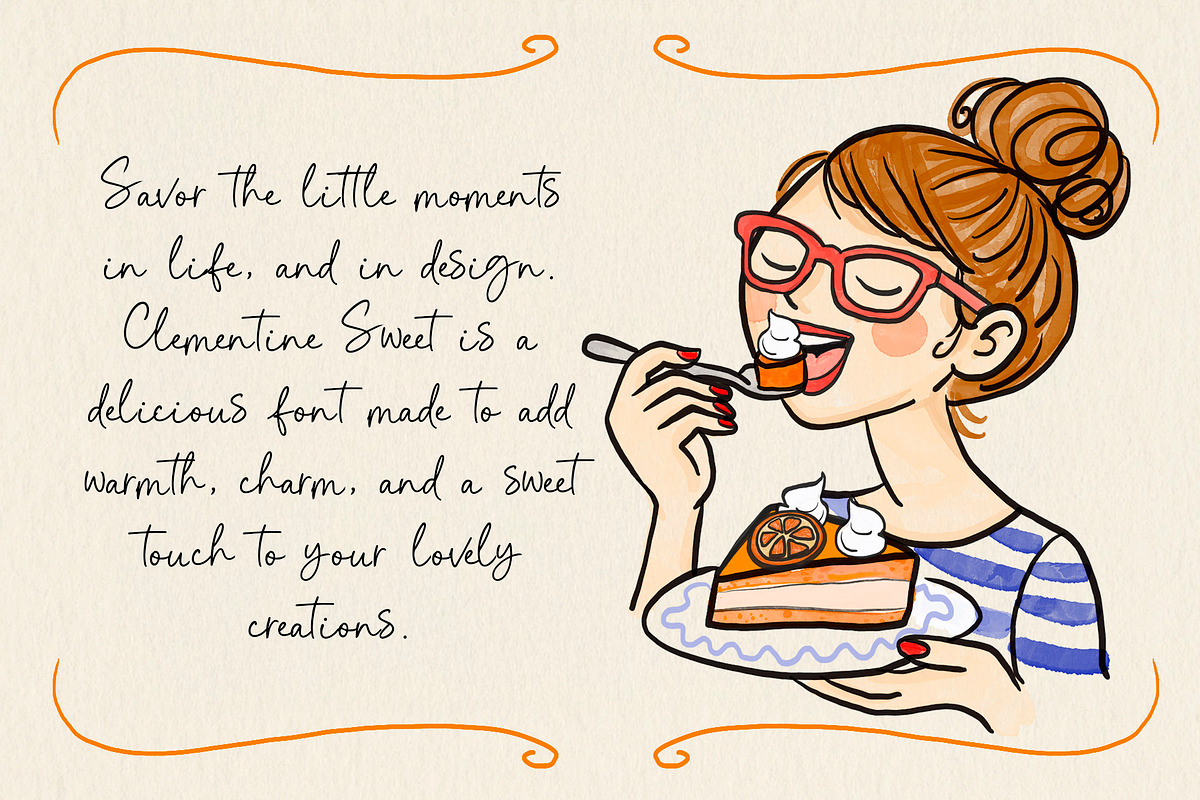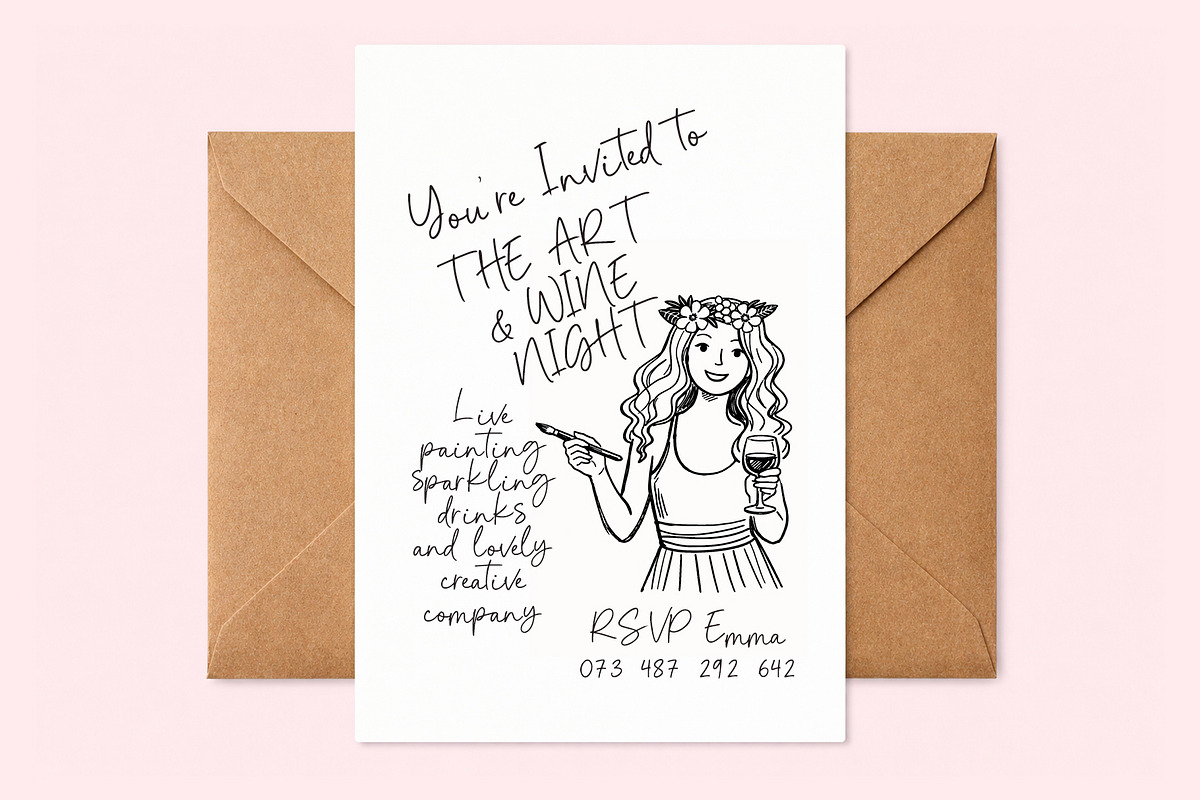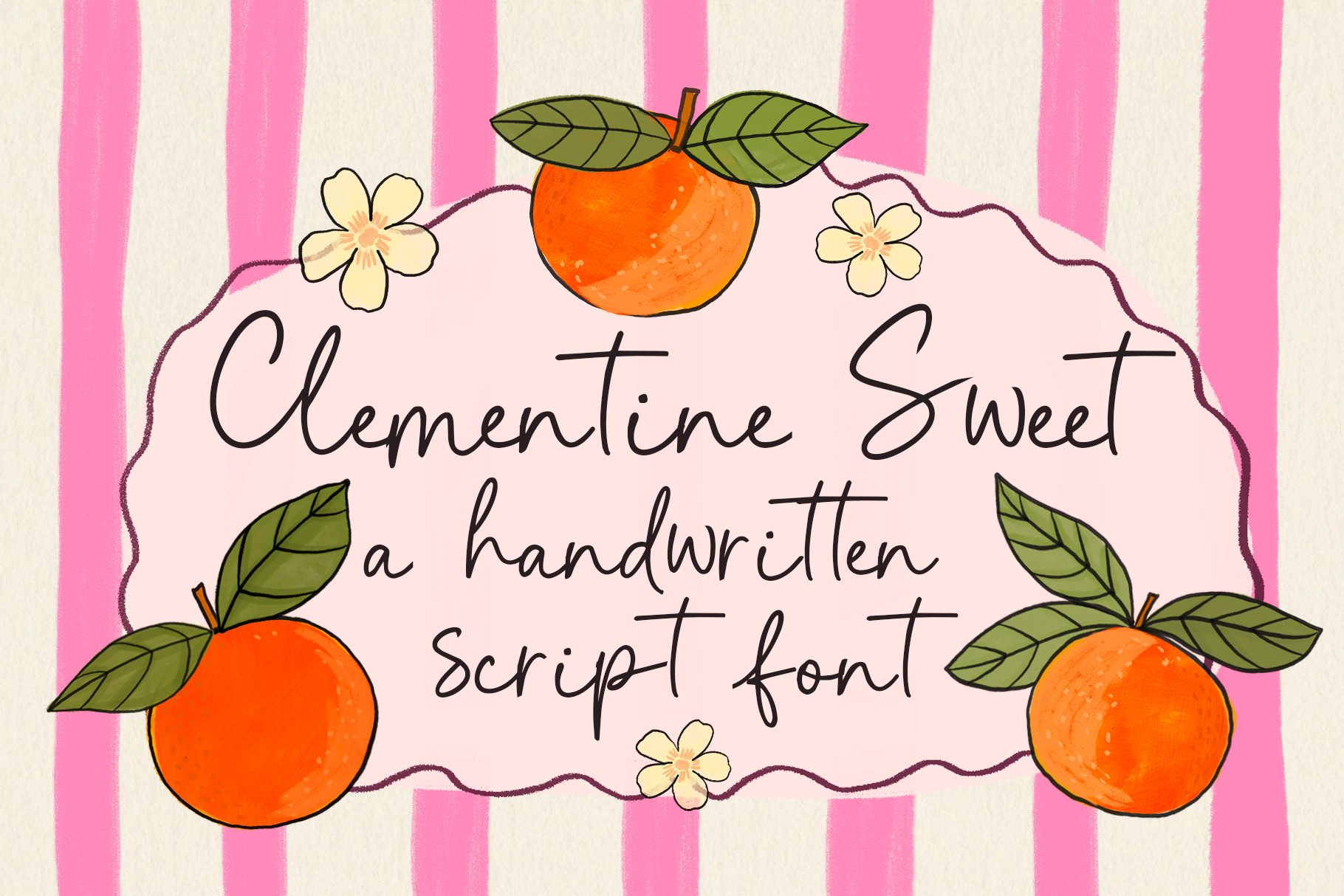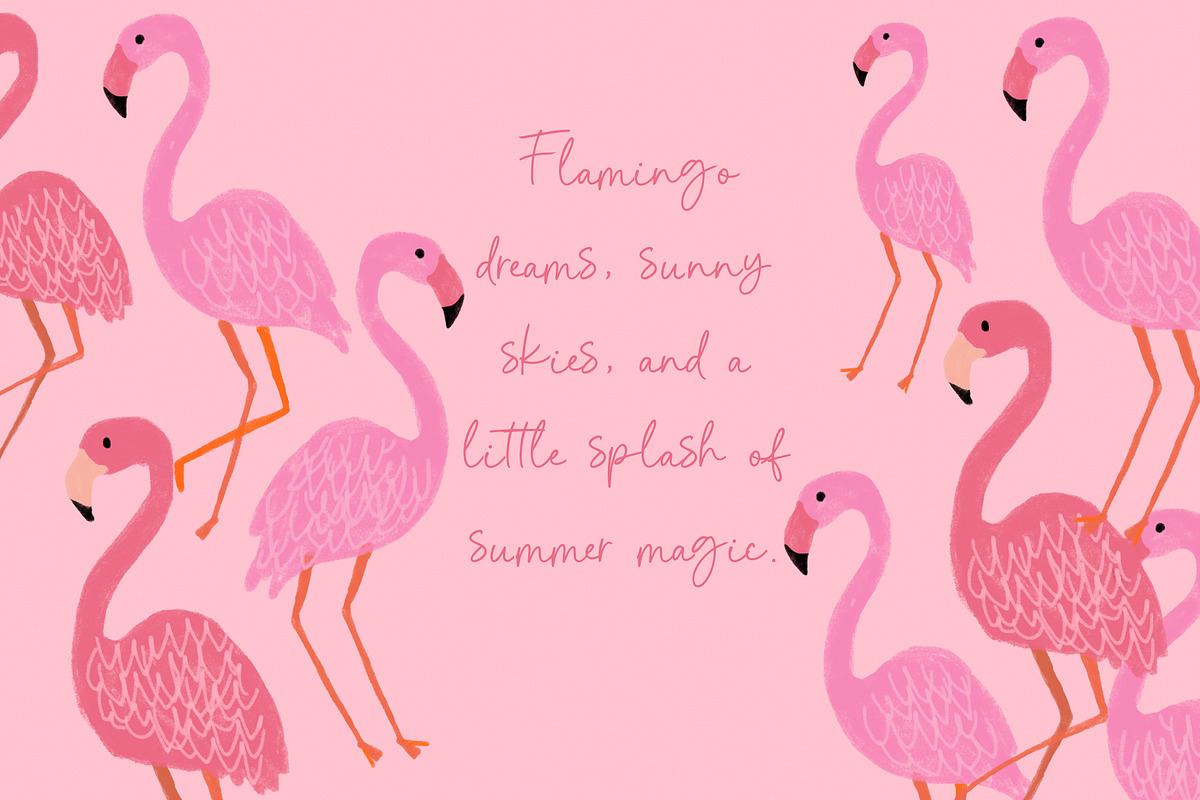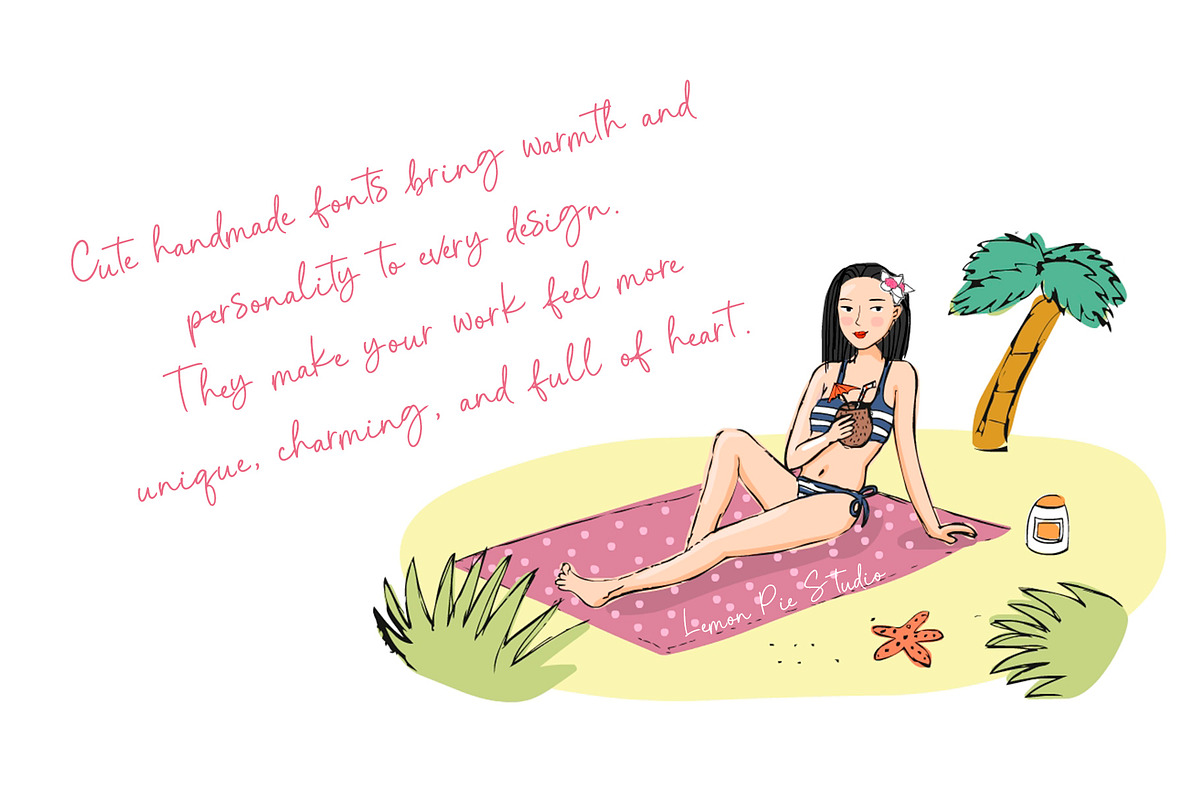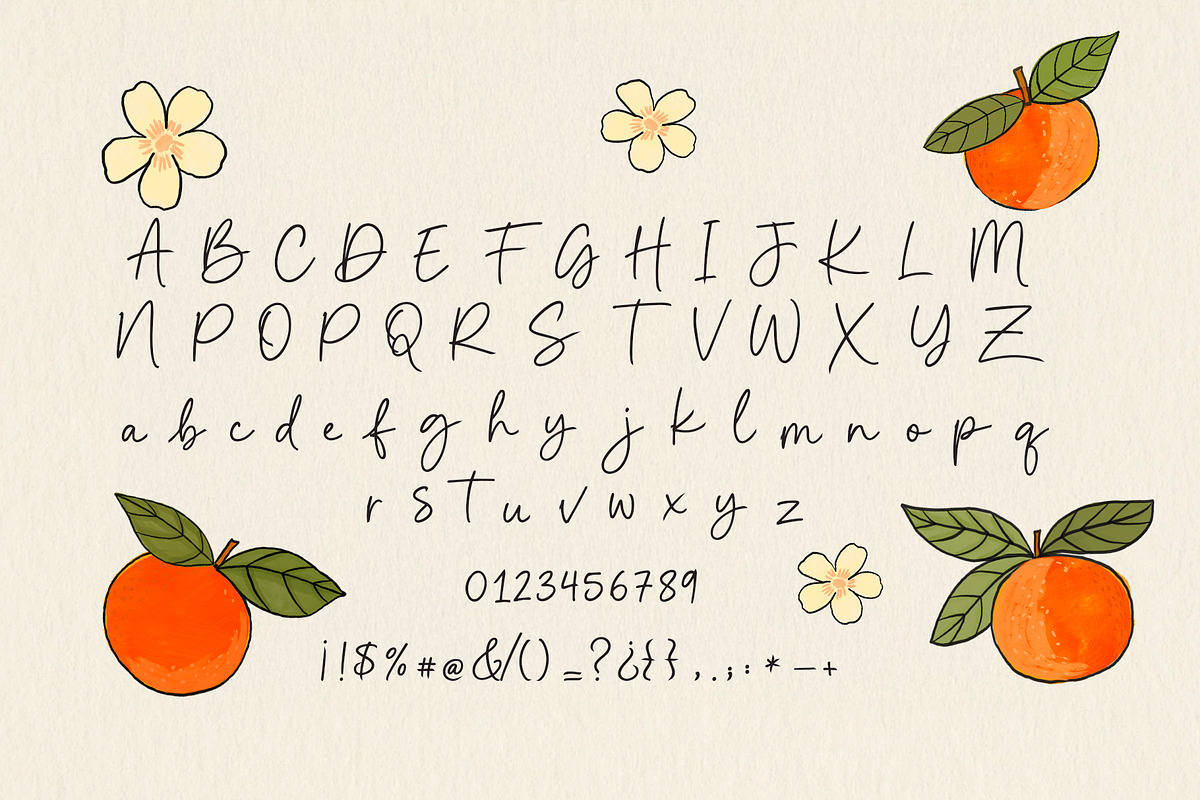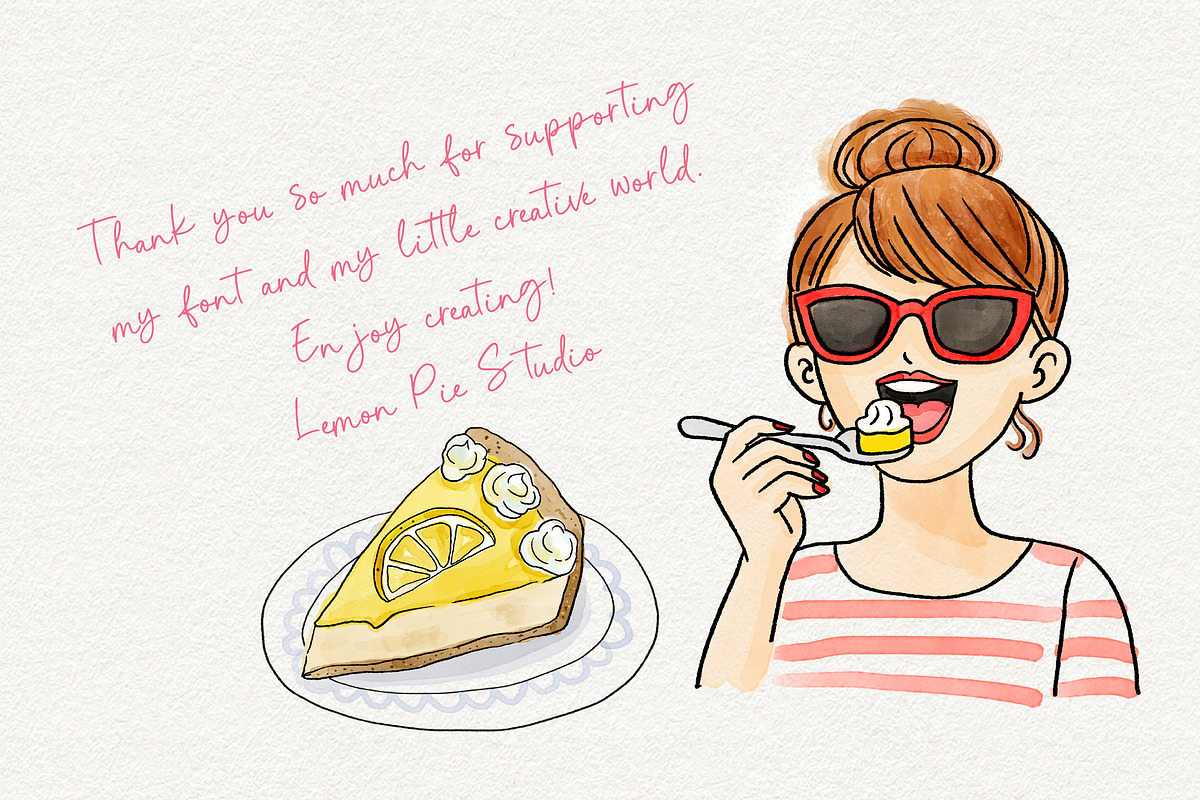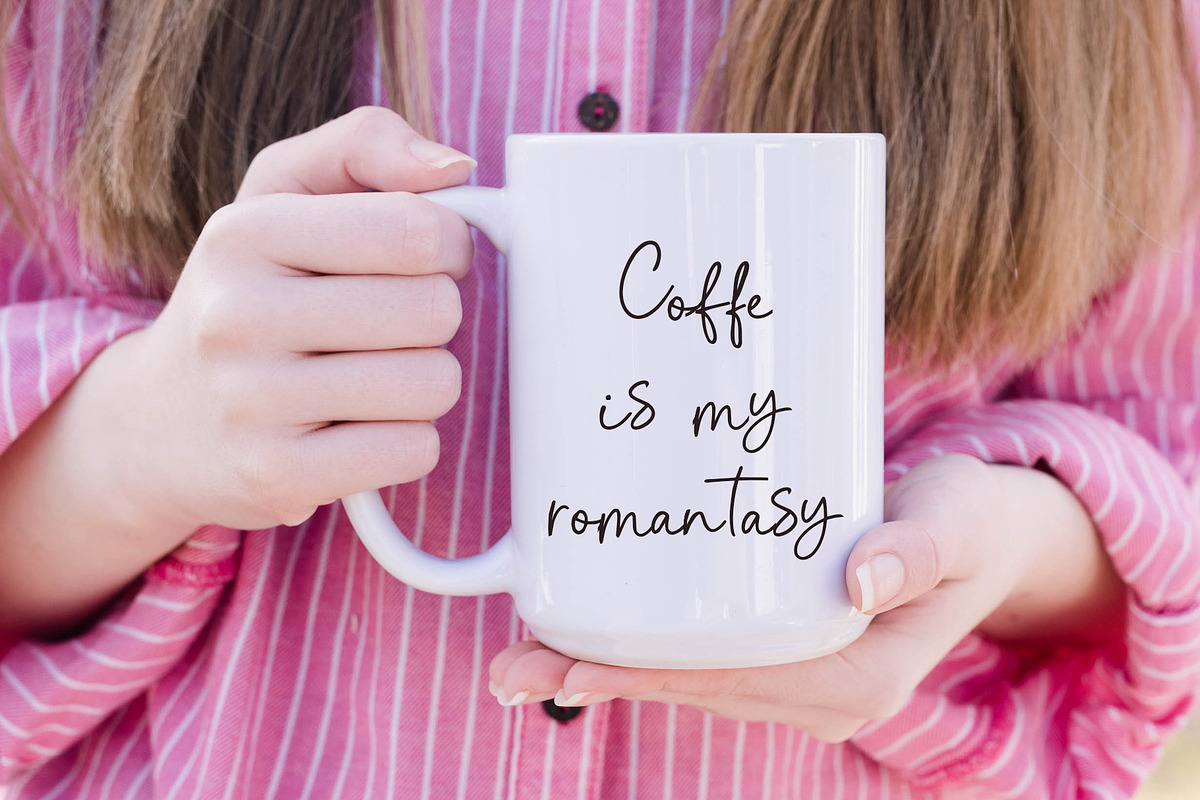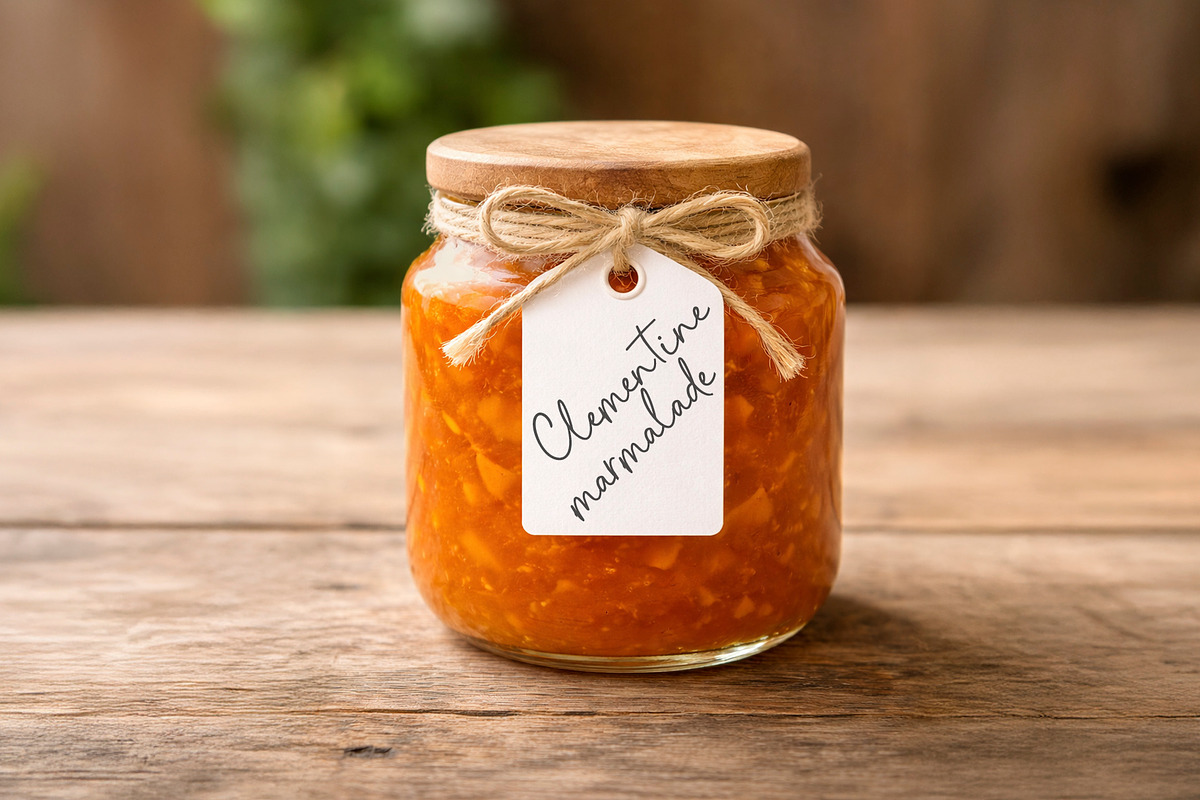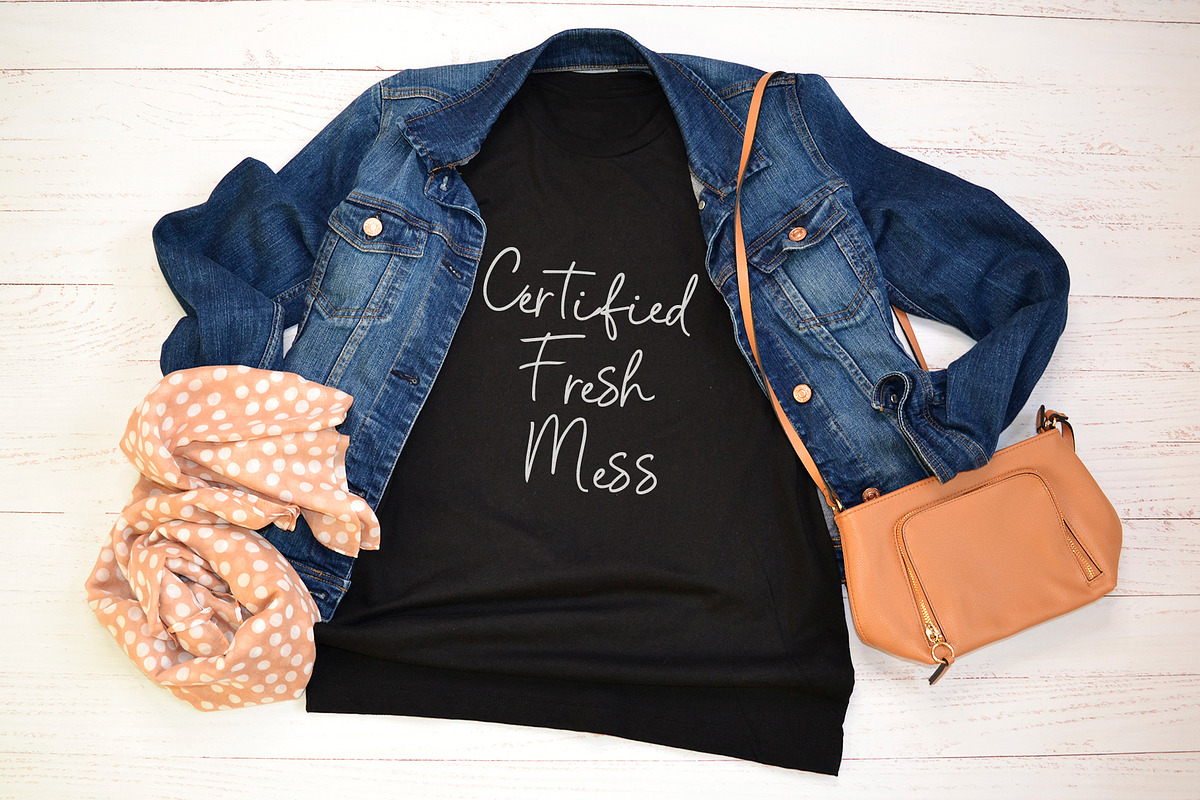
Clementine Sweet Handwritten Font
Clementine Sweet is a cute handmade script font full of warmth, charm, and playful personality. With its natural handwritten feel and delicate lines, it is perfect for adding a sweet and lovely touch to your creative projects.
This font works beautifully for branding, logos, packaging, invitations, greeting cards, social media posts, quotes, product mockups, and all kinds of feminine and joyful designs. It is designed to feel soft, personal, and full of heart, making every word look a little more special.
- Branding and logos
- Wedding and party invitations
- Greeting cards
- Packaging design
- Social media graphics
- Quotes and printable art
- Handmade product labels
- Cute and feminine projects
Clementine Sweet is ideal for designers, makers, and dreamers who love charming handwritten fonts with a fresh, cheerful style.